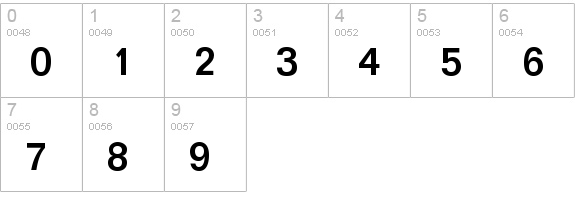
Folio Medium Font Details
Folio Medium is a balanced, medium-weight variant in the Folio typeface family \xE2\x80\x94 well suited to sub-headlines, navigation, and balanced editorial work.
Folio Medium is a versatile and elegant font that exudes sophistication and modernity. With its balanced proportions and clean lines, this typeface is perfect for a wide range of design projects, from branding to editorial layouts. The medium weight strikes the perfect balance between boldness and legibility, making it ideal for both headlines and body text. What sets Folio Medium apart is that it is available for free download at FontsMarket.com. This means that designers and creatives can easily access this high-quality font without any cost, allowing for endless possibilities in their projects. Whether you're working on a poster, website, or packaging design, Folio Medium is sure to elevate your work with its timeless appeal and professional aesthetic. Unlock the potential of your designs with the freely available Folio Medium font today!